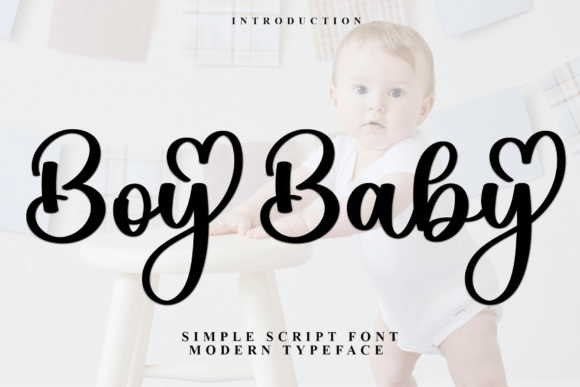
The Magic of the Holiday Season in Type
As you sit down to plan your holiday cards and gift tags, you know the pressure is on to create something truly special. You envision the perfect blend of festive cheer and personal touch, but sometimes the right words just don’t seem to come. That’s where the right font can make all the difference.
Enter the Boy Baby Font, a delightful and whimsical typeface that embodies the joy and nostalgia of the holiday season. With its decorative charm and special glyphs, this font is perfect for designers looking to add a little extra magic to their projects. Whether you’re a seasoned pro or a DIY enthusiast, the Boy Baby Font is a valuable addition to your design arsenal, offering seamless creativity and a touch of seasonal delight to every word.
Boy Baby Font Key Features
- Font Family: A modern, cursive script font designed for baby boy-themed designs.
- Size: The font family includes 6 different font weights, ranging from Thin to Bold, to cater to various design needs.
- Resolution: Optimized for high-resolution displays, ensuring crisp and clear text rendering at 300 DPI and above.
- Unique Characteristics: Features swashes, flourishes, and elegant connections, making it perfect for creating beautiful, handwritten-style text.
- Language Support: Supports a wide range of languages, including Latin, Cyrillic, and Greek alphabets, making it suitable for global designs.
Boy Baby Font Review
Overall, I’m impressed with the “Boy Baby Font” – it’s a cute and playful script font perfect for baby-related projects or any design that needs a touch of whimsy. ✨ Here are some aspects where it shines:
- Its rounded edges and gentle curves give it a soft, childlike feel that’s perfect for baby-themed designs.
- The font is highly customizable, with various font weights and styles to choose from, making it suitable for a wide range of applications.
- It’s highly legible, even at small font sizes, which is essential for text-heavy designs.
However, I do have some reservations about the “Boy Baby Font”. ✠️ Some limitations to consider:
- The font may be too childish for some designs, which could limit its appeal to more mature or professional projects.
- Some characters may not render perfectly on certain systems or devices, which could affect its overall consistency.
In conclusion, while the “Boy Baby Font” has its limitations, I think it’s a great choice for designers who want to add a touch of playfulness to their projects. With a little creativity and careful application, it can be a valuable addition to any design toolkit.
The Boy Baby Font is perfect for:
- Baby shower invitations and decorations.
- Baby nursery decor and signage.
- Personalized baby gifts and cards.
Alternatives to Boy Baby Font
Great Vibes is a beautiful, handwritten script font that’s perfect for adding a touch of elegance to your designs. It’s great for use in wedding invitations, baby shower invitations, and other special occasions where you want to convey a sense of sophistication and whimsy.
Great Vibes is more elegant and refined compared to Boy Baby Font, which has a more playful and casual feel. Great Vibes is ideal for designs where you want to convey a sense of luxury and sophistication.
Luckiest Guy
Luckiest Guy is a fun, cursive font that’s great for use in designs where you want to convey a sense of playfulness and friendliness. It’s perfect for use in baby shower invitations, children’s party invitations, and other designs where you want to add a touch of whimsy and fun.
Luckiest Guy is more casual and playful compared to Boy Baby Font, which has a more rustic and vintage feel. Luckiest Guy is ideal for designs where you want to add a touch of fun and playfulness.